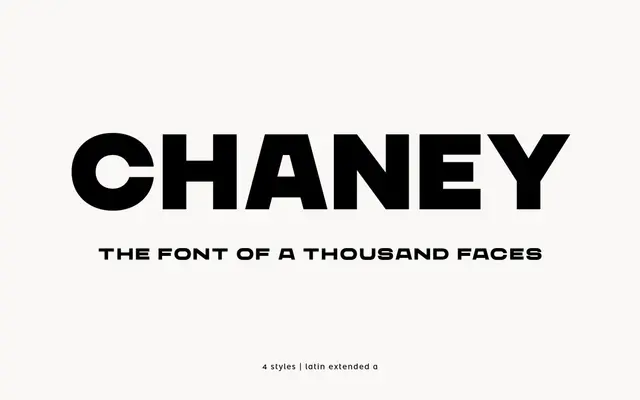
Chaney
atipo foundry · Raul Garcia del Pomar, Ismael Gonzalez · 2020
A wide industrial display sans by atipo with four widths from Regular to Ultra Extended, drawn for posters and large-scale display.
An industrial display sans by Raul Garcia del Pomar and Ismael Gonzalez at atipo foundry, designed across four widths: Regular, Wide, Extended and Ultra Extended. Chaney leans into the wood-type tradition with squared terminals and broad horizontals, and includes stylistic alternates, fractions, superiors and ordinals. Sits well on posters, mastheads, sports identities and any setting where width is the typographic argument.
A wide industrial sans drawn for display, with four widths from Regular through to Ultra Extended that push horizontal proportions into wood-type territory. Useful for posters, mastheads and identities that want presence and width.